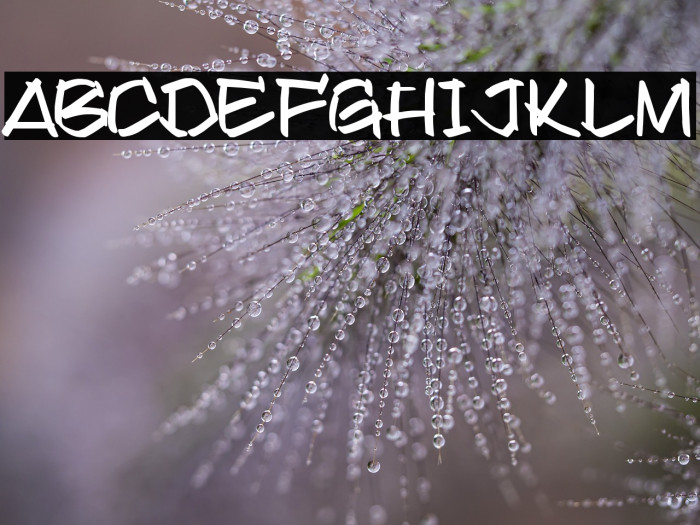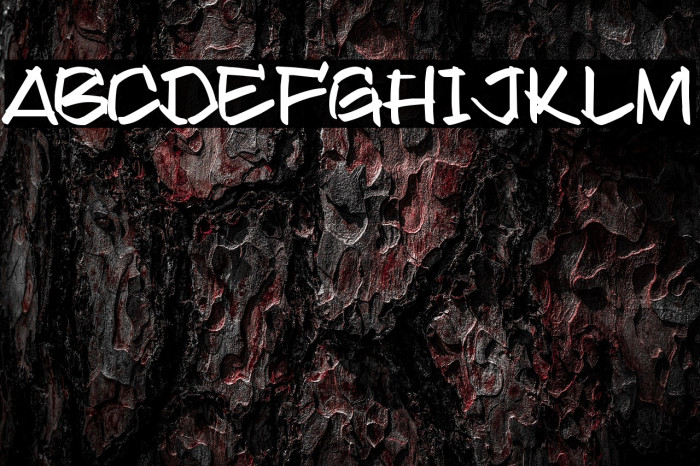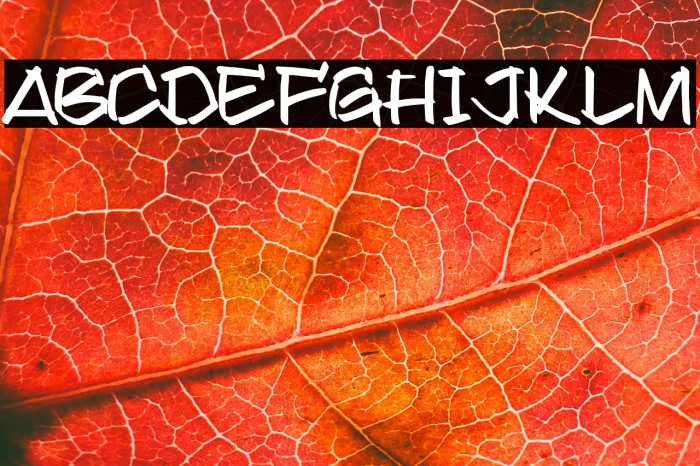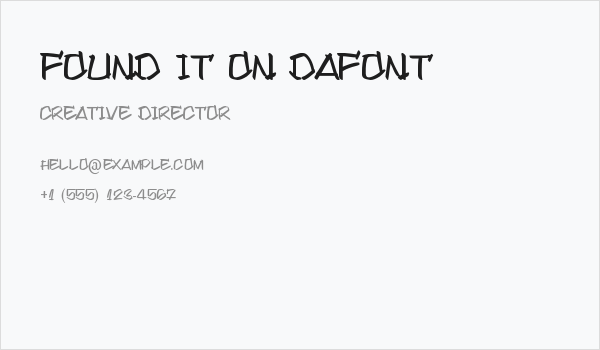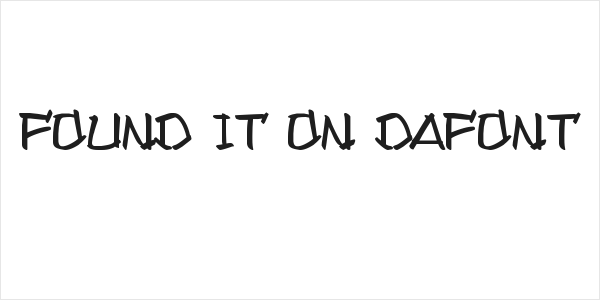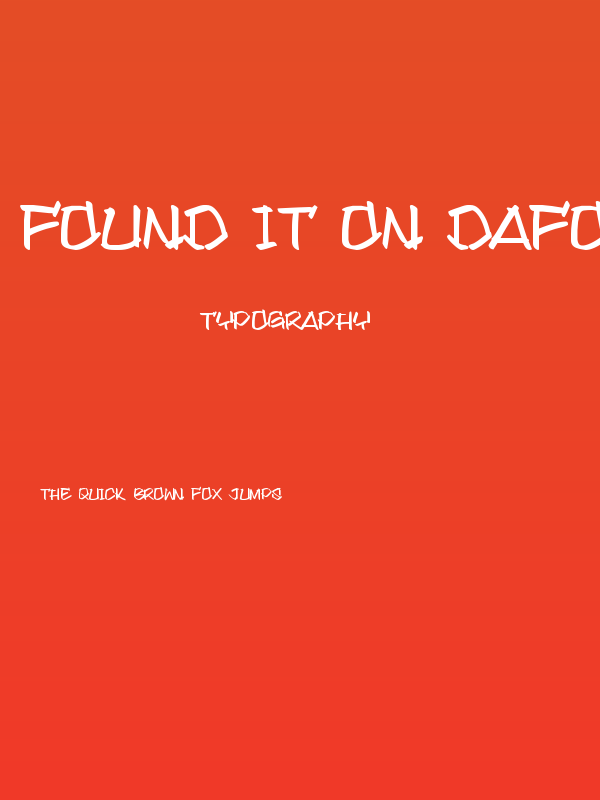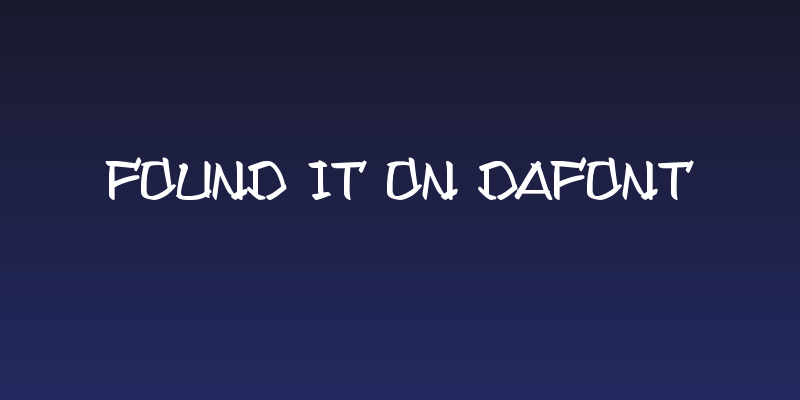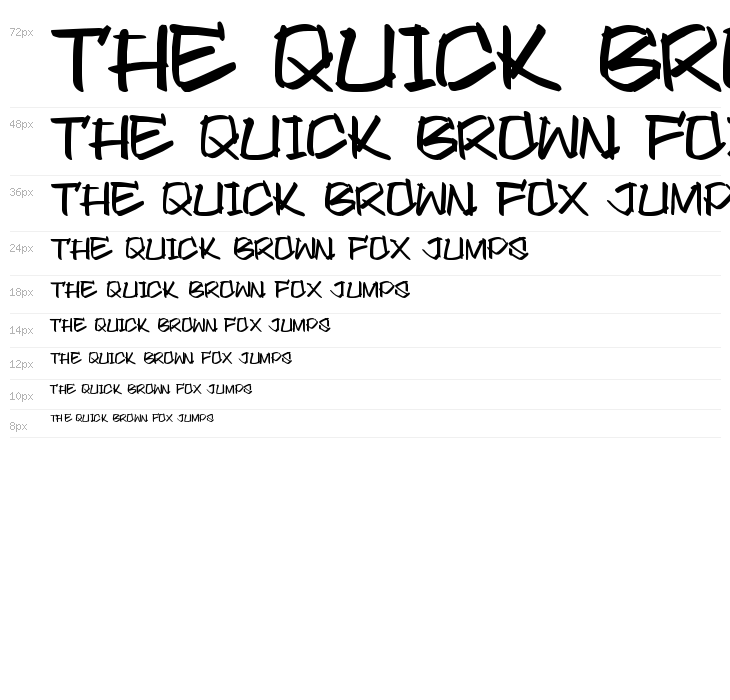
Found it on Dafont Font
This font features a bold, graffiti-inspired style with a dynamic and energetic appearance. The characters are slightly slanted, giving a sense of movement and spontaneity. Each letter is crafted with a hand-drawn aesthetic, characterized by uneven strokes and a playful, informal vibe. The uppercase and lowercase letters maintain a consistent style, while the numbers and special characters complement the overall design. This font is ideal for projects that require a youthful and rebellious touch, such as street art, music album covers, or urban-themed designs.
Overall StyleModern, Urban
Proposed ProjectsStreet art designs, music album covers, urban-themed posters, and edgy branding.